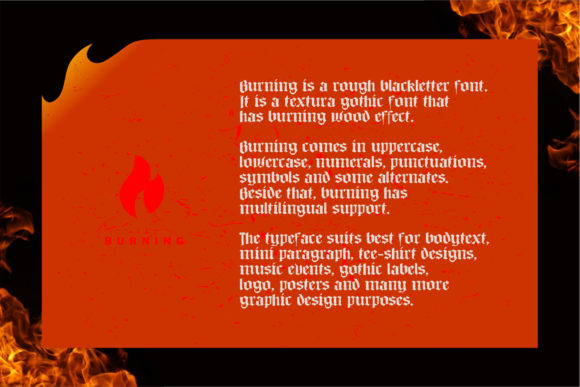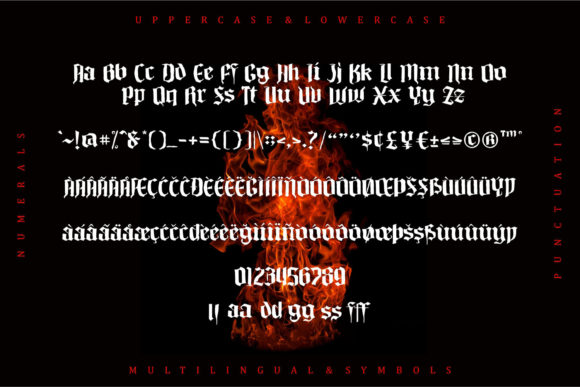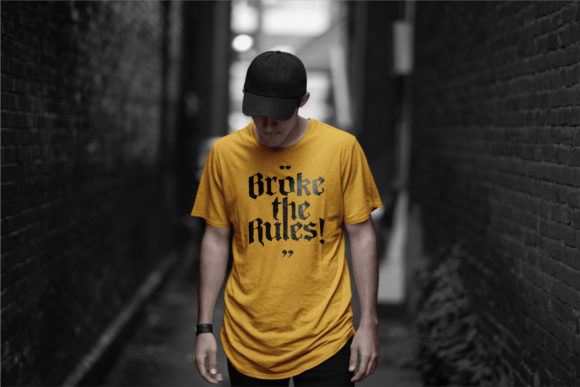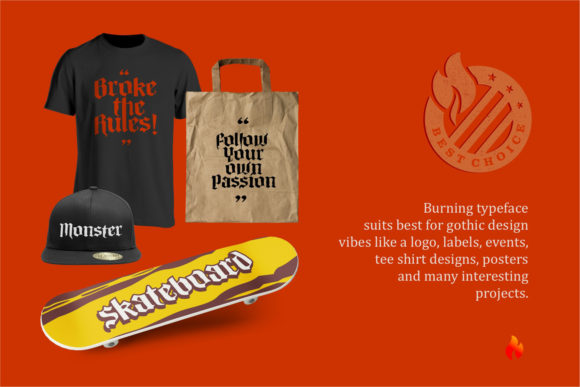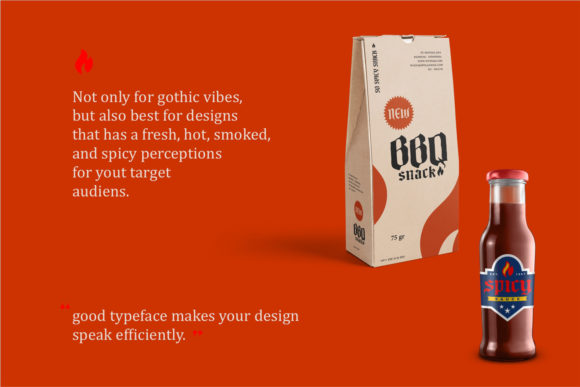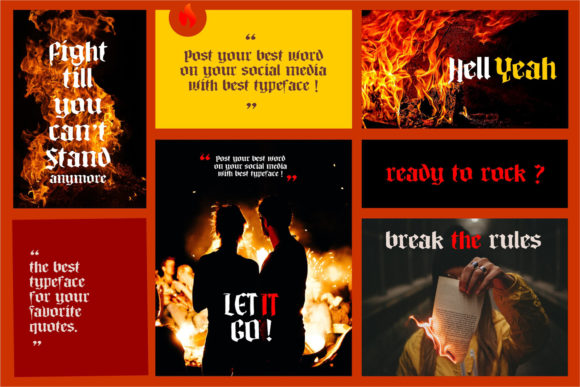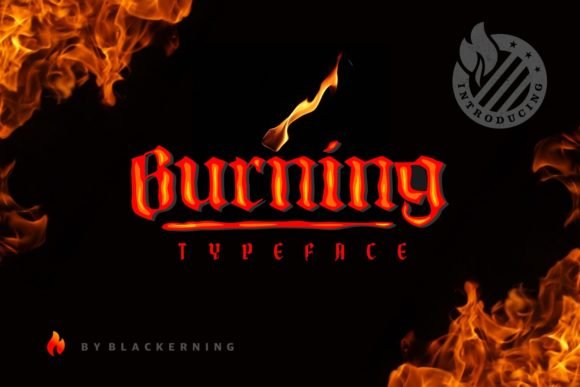
The Perfect Blend of Distinction and Sobriety: Unleashing the Power of Burning Font
You’ve been staring at your blank design canvas for what feels like an eternity, searching for the perfect font to bring your vision to life. Suddenly, a spark of inspiration strikes, and you recall a project you saw online that featured a bold, rough-textured font that left a lasting impression. You’re on the hunt for a similar font, one that exudes distinction and sobriety in equal measure.
Enter Burning Font, a blackletter font that’s as versatile as it is striking. With its rough, uneven lines and rugged texture, Burning Font is the perfect choice for designers looking to add a touch of sophistication to their designs. Whether you’re working on a logo, a brochure, or a website, Burning Font is sure to make a lasting impression.
Burning Font Key Features
- Font Family: Burning Font is a unique, hand-drawn font family designed for use in various applications, including digital and print media.
- Character Set: Includes a wide range of characters, including uppercase and lowercase letters, numbers, punctuation marks, and special characters.
- Size: The font family includes 6 font weights, ranging from Thin to Black, allowing for a high degree of customization and flexibility.
- Unique Characteristics: Burning Font features a distressed, hand-drawn aesthetic, giving it a unique and eye-catching appearance that sets it apart from other fonts.
Burning Font Review
First off, I have to say that Burning Font is a bold and eye-catching choice for any project. ✨ The dynamic, hand-drawn style of this font adds a touch of sophistication and creativity to any text, making it perfect for use in modern designs. ✨ The letterforms are highly customizable, allowing designers to adjust the size, color, and texture of the font to suit their needs. ✨ Additionally, Burning Font is incredibly versatile, working well for both digital and print applications.
However, there are some limitations to consider. ⚠️ One of the main drawbacks is the font’s tendency to be quite busy, making it difficult to read at smaller sizes. ⚠️ Additionally, some users may find the font’s irregularities and imperfections to be distracting. ⚠️ Furthermore, Burning Font may not be the best choice for projects that require a high level of precision or uniformity, as the font’s hand-drawn style can be inconsistent at times.
Overall, I think Burning Font is a great choice for designers looking to add some visual interest and personality to their projects. While it may not be the most practical or precise font, its unique style and customizability make it a great option for designers who want to stand out from the crowd.
- Great for modern and creative designs
- Versatile for both digital and print applications
- Tends to be busy and difficult to read at smaller sizes
- Irregularities and imperfections can be distracting
- Not ideal for projects requiring precision or uniformity
Burning Font: A Practical Application Guide
What is Burning Font?
Burning Font is a creative text effect that simulates the appearance of burning flames. It can add a dramatic and eye-catching touch to your designs.
To get the most out of Burning Font, use it to add a dramatic effect to:
1. Headlines and titles.
2. Quotes and phrases.
3. Social media posts and advertisements.
4. Event invitations and promotional materials.
Common Mistakes to Avoid
Avoid using Burning Font on large blocks of text, as it can be overwhelming. Also, be mindful of the color scheme and background to ensure the Burning Font effect stands out.